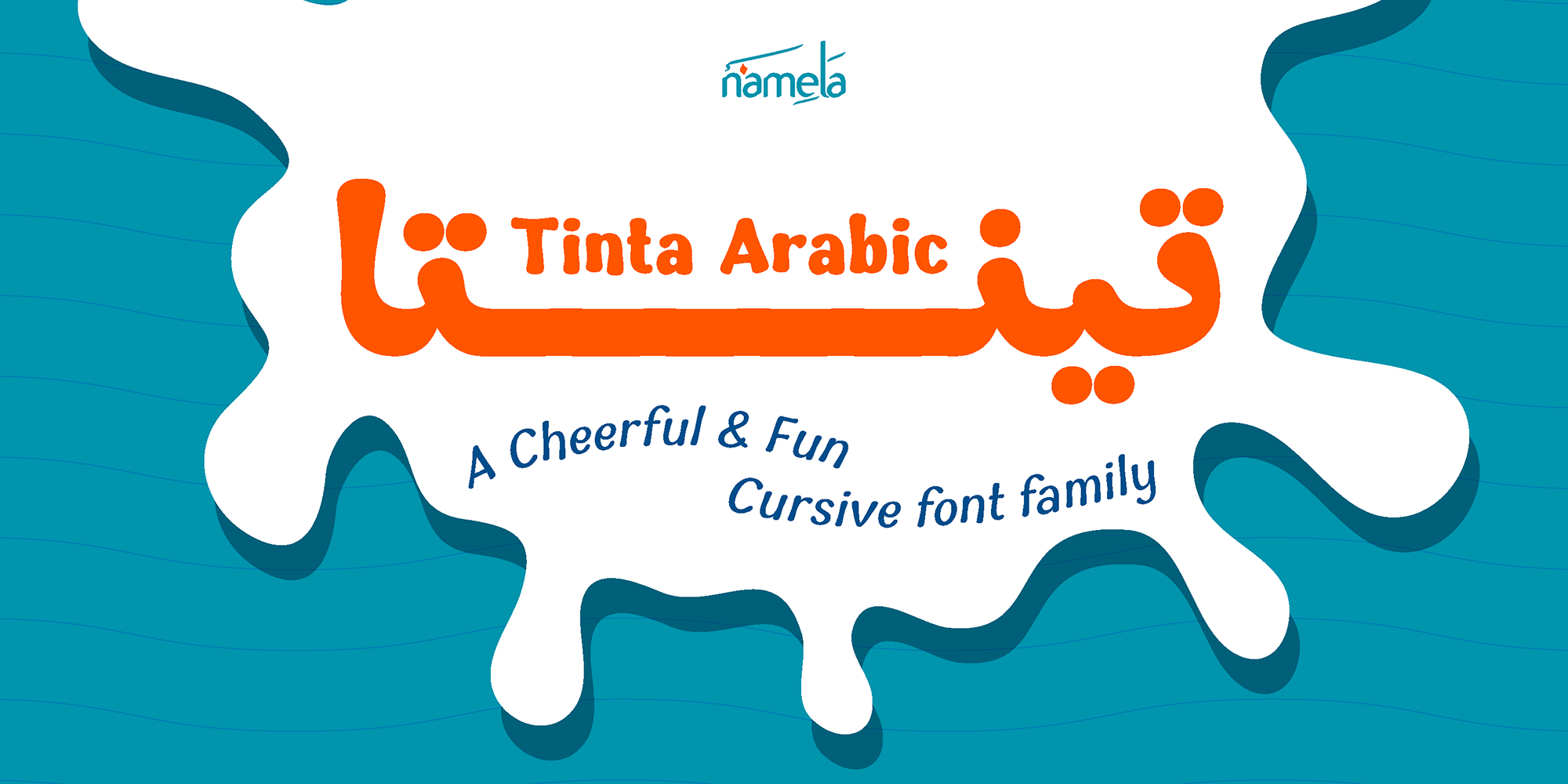
Tinta Arabic Font is ideal for Middle Eastern restaurant branding, Islamic cultural center signage, Arabic language learning materials, mosque architectural graphics, traditional calligraphy workshops, and multicultural celebration designs.
Tinta Arabic Font is exciting because it beautifully captures the flowing elegance and spiritual depth of Arabic calligraphy, offering designers an authentic typeface that honors Islamic artistic heritage while maintaining contemporary functionality.
The Tinta Arabic Font family includes cultural variations: Tinta Arabic Light, Tinta Arabic Regular, Tinta Arabic Bold, decorative ligatures, and ornamental elements inspired by traditional Islamic geometric patterns and classical Arabic manuscripts.
Celebrate cultural heritage with Tinta Arabic Font Free Download, an exquisitely crafted typeface that brings the timeless beauty and spiritual grace of Arabic calligraphy to your most meaningful design projects. This sophisticated font excels in creating authentic branding for cultural organizations, educational institutions, interfaith dialogue centers, and heritage preservation societies that promote understanding and appreciation of Arab and Islamic cultures. The masterfully designed letterforms feature flowing curves and harmonious proportions that reflect centuries of calligraphic tradition while ensuring excellent readability across all contemporary applications. Perfect for cultural festival materials, Arabic language textbooks, interfaith community programs, and museum exhibitions that need to communicate respect for diverse traditions and cultural wisdom, this font connects with audiences who value artistic heritage and cross-cultural understanding. Each character flows with spiritual elegance, making every message feel like a bridge between ancient wisdom and modern communication. Tinta Arabic Font transforms multicultural communications into beautiful expressions that honor tradition while fostering dialogue and mutual respect across diverse communities worldwide.